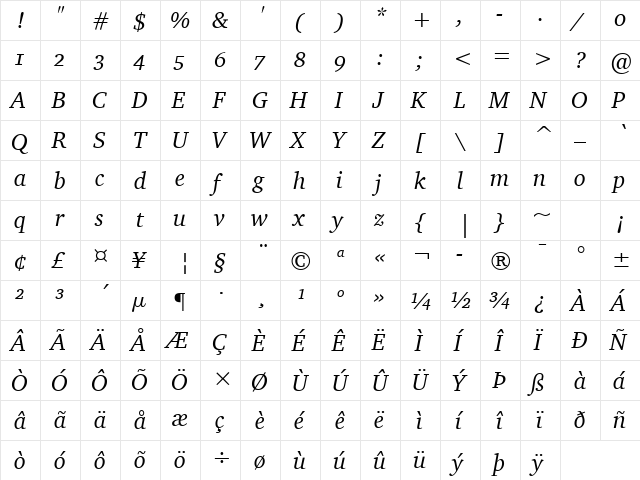
Charter OS ITC TT Italic Font Preview
Charter OS ITC TT Italic
Charter OS ITC TT Italic Font Details
Design Context for Charter OS ITC TT Typeface
Charter OS ITC TT takes a measured approach to typography — its balanced proportions and neutral character make it a reliable workhorse for both digital and print work. Its italic angle brings a sense of urgency and motion to the letterforms.